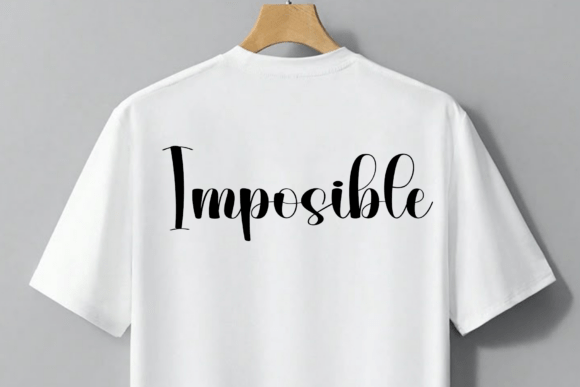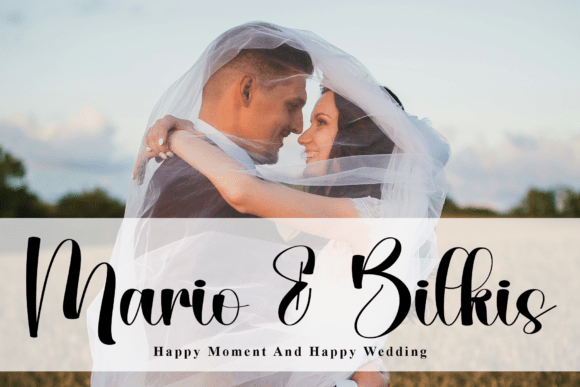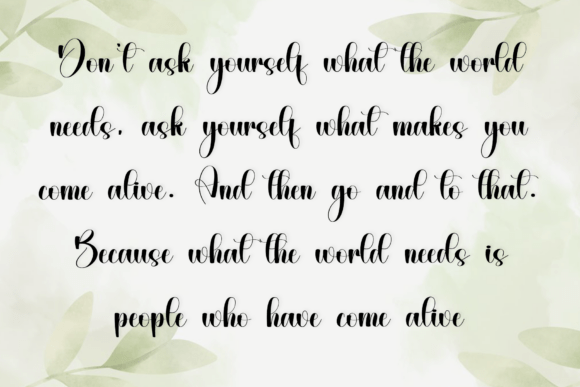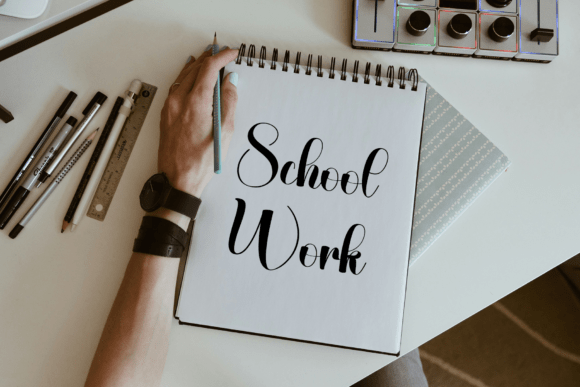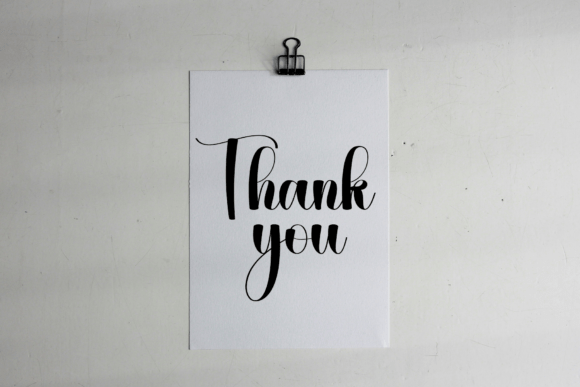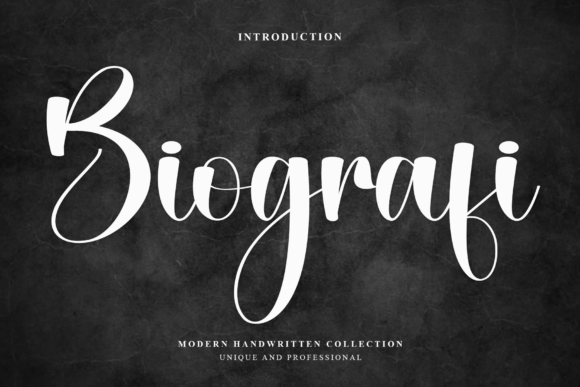
The Biografi Font: A Timeless Beauty for Your Designs
Have you ever been in the middle of a design project, and suddenly, you’re stuck on finding the perfect font? I recall a particularly frustrating experience while working on a branding project for a client who wanted a logo that exuded elegance and sophistication. After hours of scouring through font libraries, I stumbled upon Biografi – a lovely and timeless handwritten font that instantly captured the essence of the brand. In this article, I’ll share my journey with Biografi, its features, and how to make the most of it in your designs.
A Personal Review of Biografi
What I Love About Biografi ✨
- Unique and beautiful touch in every letter ✅
- Perfect for creating eye-catching logos, branding, and quotes 📣
- Timeless and elegant feel that suits various design projects 🕰️
- Handwritten with a personal touch, making it relatable and friendly 👫
- May not be suitable for very long texts or body copy, as it’s best used for headlines or titles 📄
- Some users might find the font a bit too ornate or decorative for certain projects ⚠️
Biografi comes with a range of OpenType features, glyphs, and stylistic alternates that can elevate your designs. Experiment with:
- Ligatures: Combine letters for a more beautiful and flowing text.
- Stylistic alternates: Switch between different font styles to add variety.
- Glyphs: Access additional characters, such as ornaments or swashes, to add a personal touch.
The Backstory of Biografi
The creator of Biografi drew inspiration from classic handwritten fonts, with a goal to craft a unique and timeless font that would add a personal touch to designs. The result is a beautiful and elegant font that exudes warmth and sophistication.
Q: What type of projects is Biografi best suited for?
Biografi is perfect for creating eye-catching logos, branding, and quotes. It’s also great for adding a personal touch to designs, such as in invitations, greeting cards, or social media graphics.
Q: Is Biografi a difficult font to read?
No, Biografi is a clear and legible font, making it suitable for use in titles, headings, and short texts.